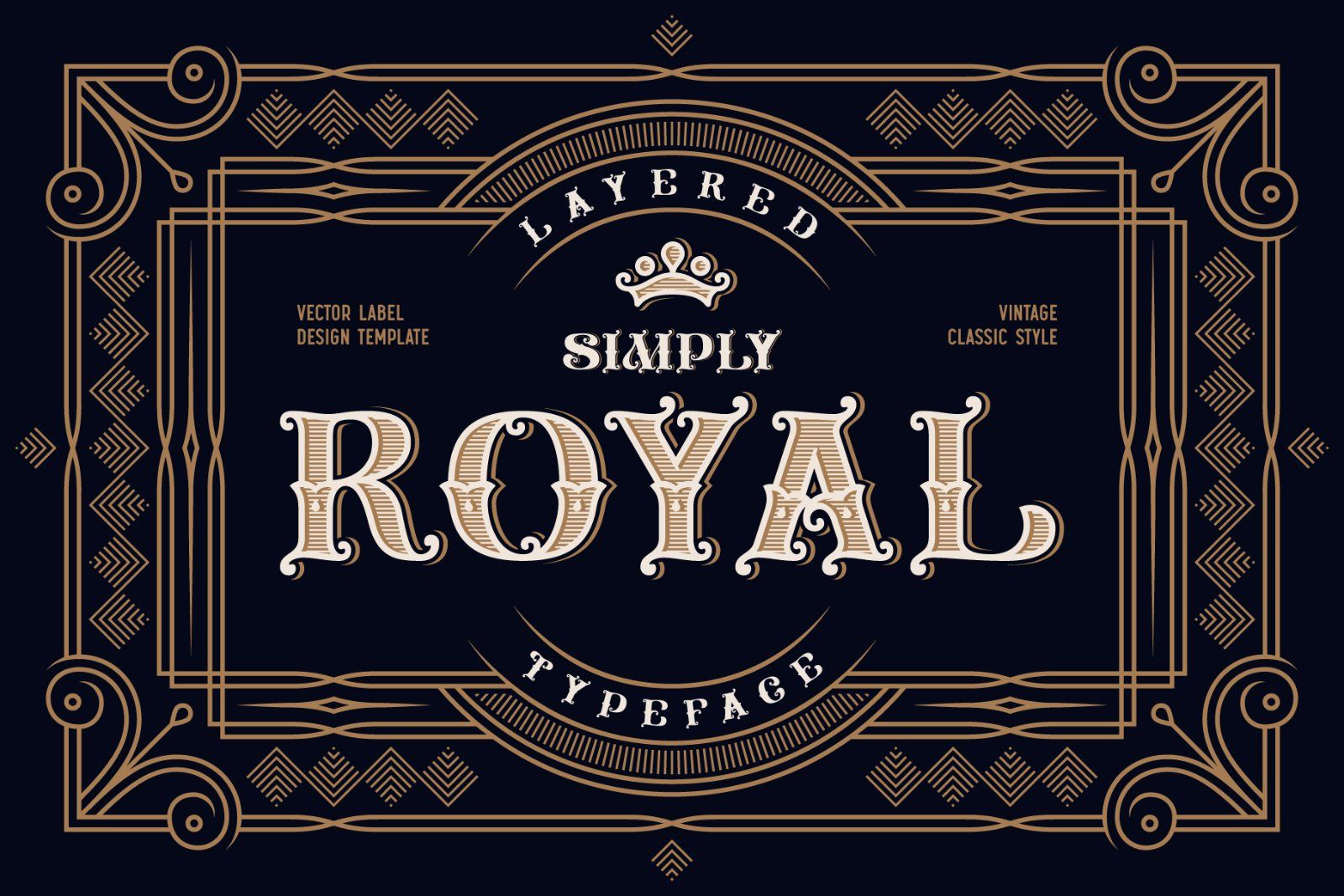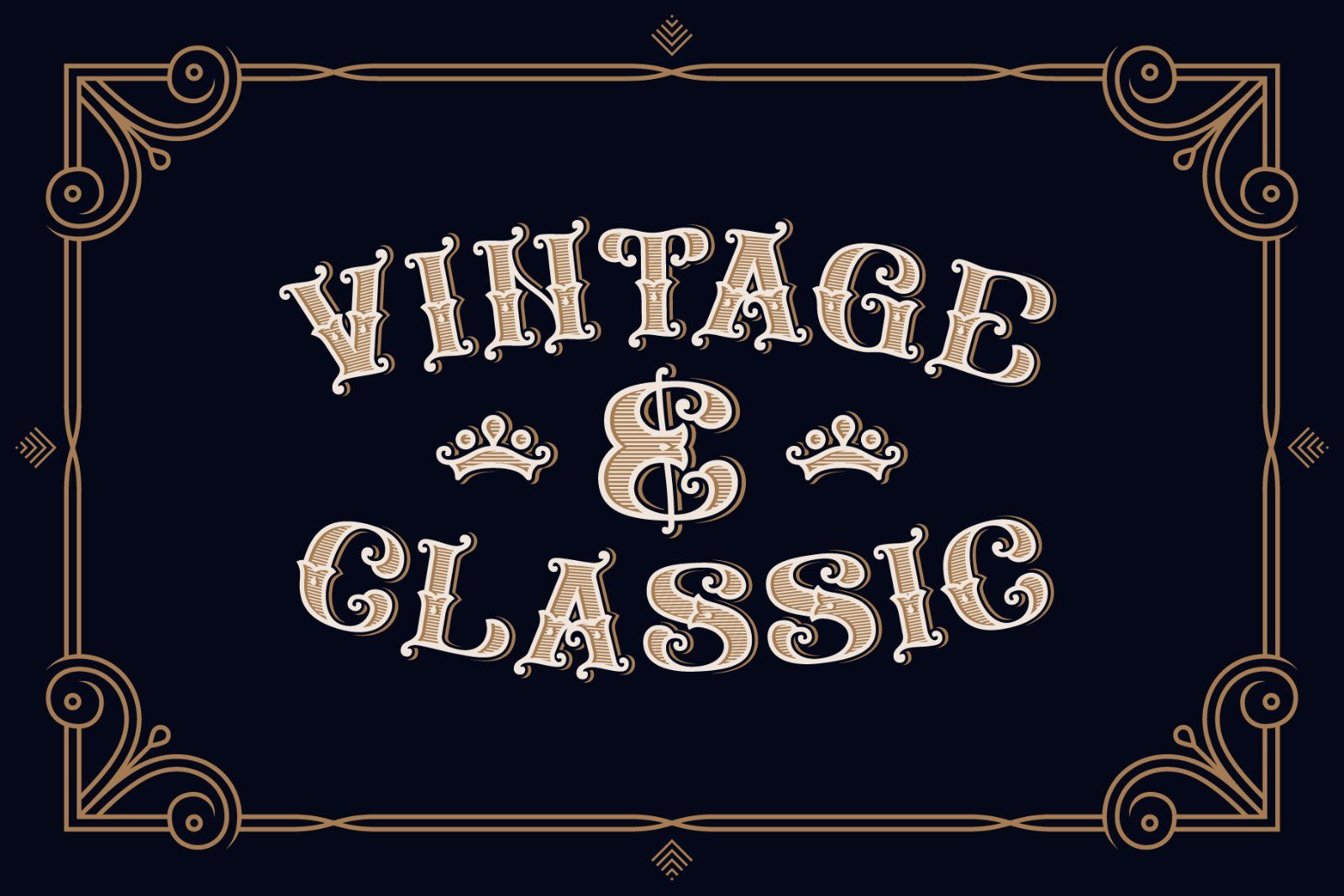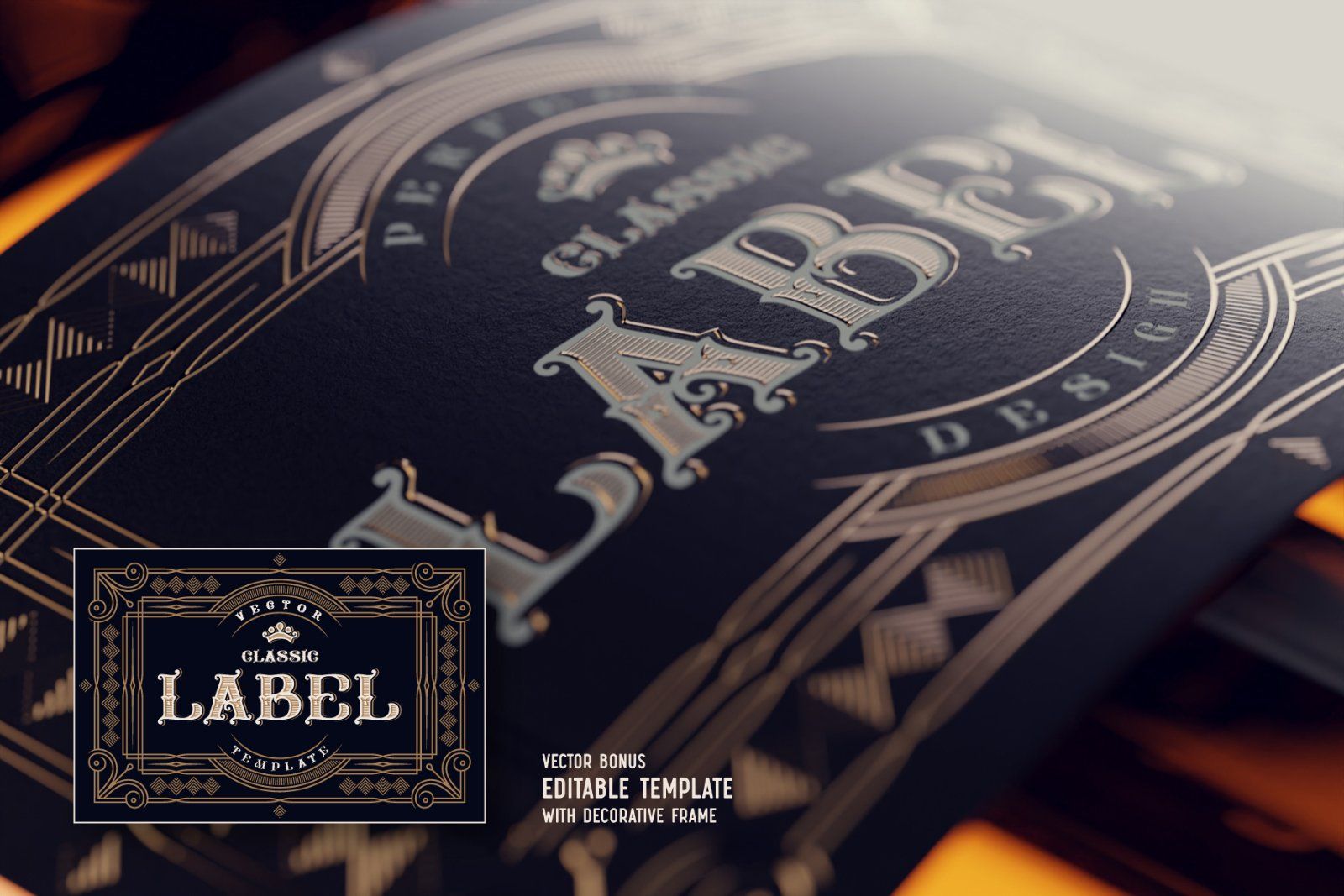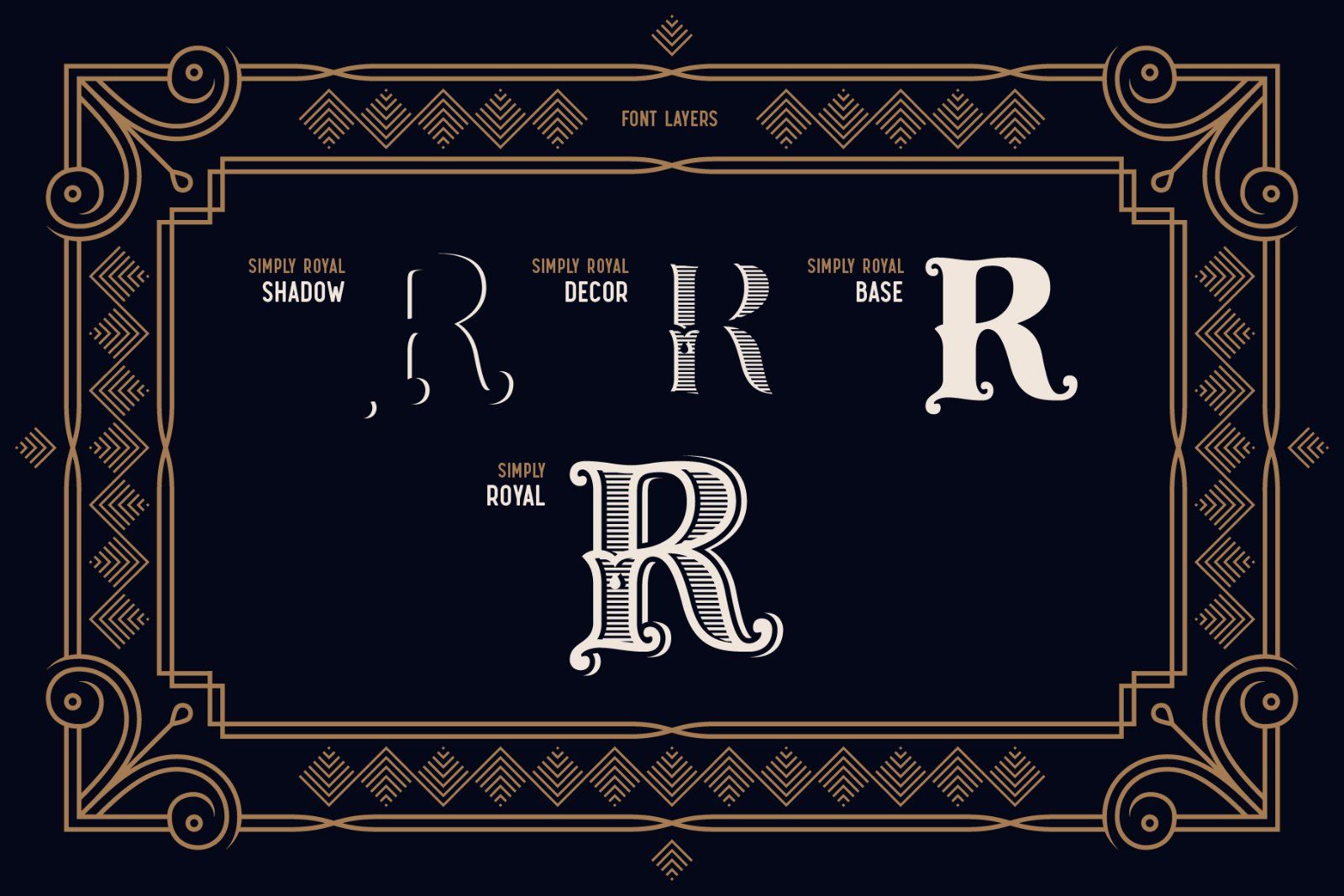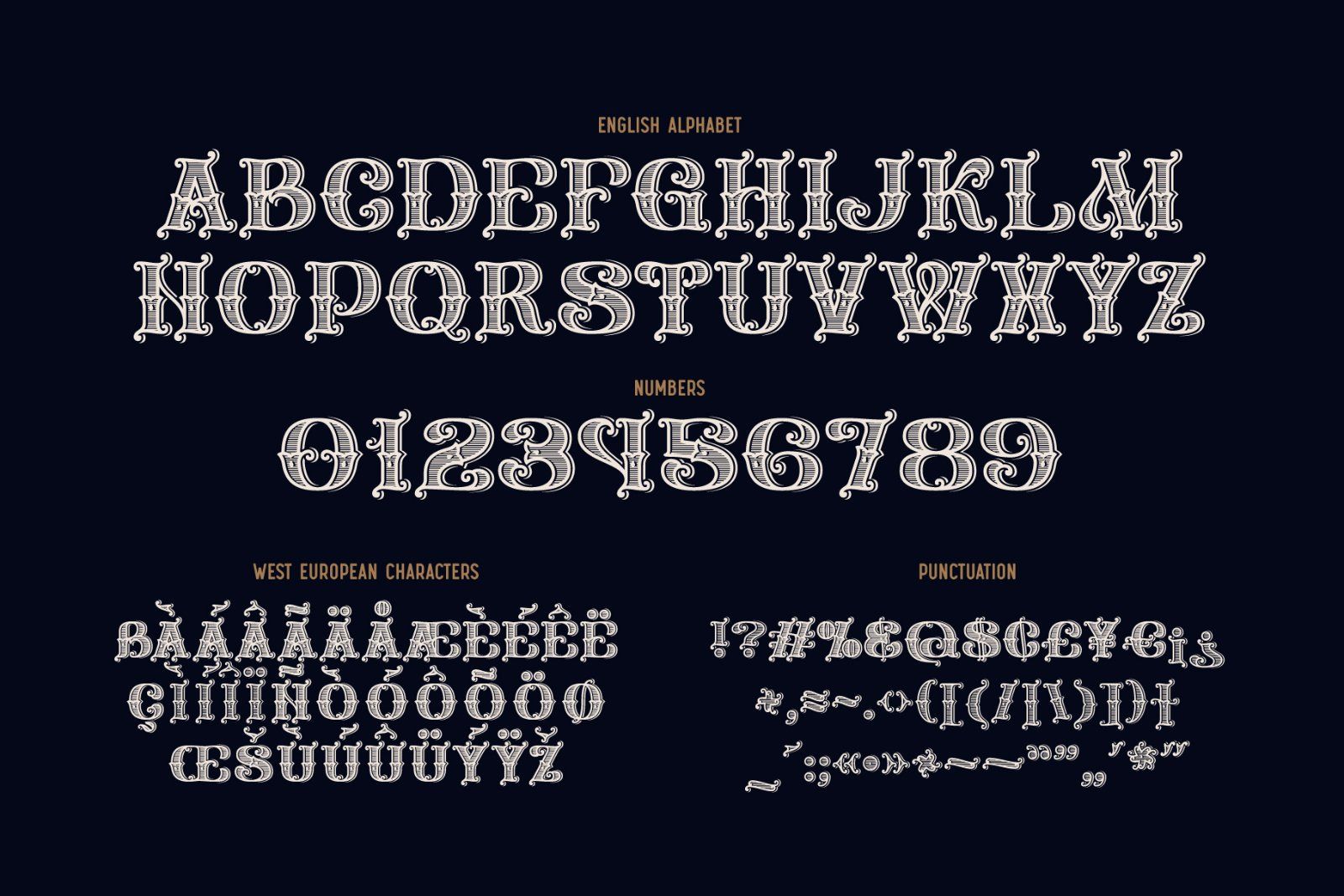
Introducing a vintage font Simply Royal. This typeface has a Victorian medieval look. It's an all caps typeface with decorative classic style. Simply royal has three layer fonts for more convenient recoloring. Also you will get an editable vector design template with decorative ornate!